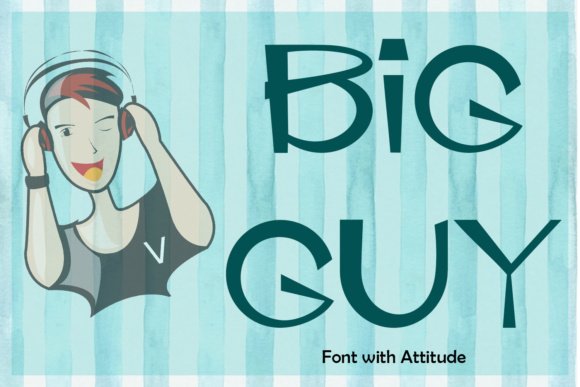
The Perfect Font for Making a Statement
Have you ever stared at a blank canvas, unsure of where to start? The blank page can be intimidating, but sometimes all it takes is the right font to spark creativity. That’s exactly what happened to us when we discovered Big Guy Font – a funky display font that’s perfect for adding a bouncy appeal to your work.
Big Guy Font is designed to add a clean yet casual feel to your creative projects, making it an invaluable tool for designers. With its playful personality, it’s perfect for use in a wide range of applications, from branding and advertising to digital art and more. Whether you’re looking to make a statement or simply add some visual interest to your work, Big Guy Font is sure to deliver.
Big Guy Font Key Features
- Font Family: Big Guy is a sans-serif font family designed for display and headline use. It is known for its bold, modern look.
- Unique Characteristics: Big Guy features a distinctive, geometric design with rounded edges and a subtle x-height, giving it a friendly and approachable feel.
Big Guy Font Review
Big Guy Font is a fun, quirky typeface that can add a touch of personality to your design. It’s perfect for titles, headings, or any text that needs a bit of whimsy. ✨
The font’s bold, playful lines give it a friendly feel that’s hard to resist. It’s especially great for use in children’s products, entertainment, or any project that needs to convey a sense of fun and adventure. ✨
Here are some of Big Guy Font’s key strengths:
- Highly legible, even at smaller font sizes
- Works well in a variety of colors, from bright and bold to pastel and muted
- Great for creating a sense of energy and movement
- The font can be a bit too playful for more formal or professional projects
- Some users may find the font too busy or distracting in larger blocks of text
- Limited language support may be a concern for multilingual projects
Overall, Big Guy Font is a solid choice for designers looking to add some personality to their work. While it may not be the best fit for every project, it’s definitely worth considering for the right applications.
Getting the Most Out of Big Guy Font
Big Guy Font is ideal for creating bold, eye-catching headlines and titles. To get the most out of it, use it sparingly and reserve it for the most important text elements in your design.